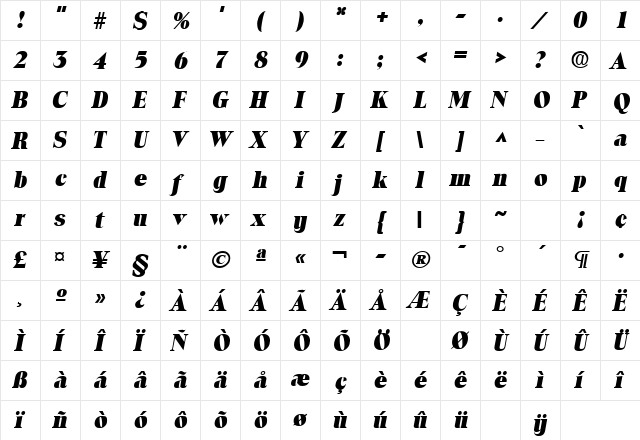
ToledoLH Bold Italic
Design Context for ToledoLH Typeface
ToledoLH takes a measured approach to typography — its balanced proportions and neutral character make it a reliable workhorse for both digital and print work. The dynamic lean of this cut emphasises speed and emphasis in any layout. The heavy weight commands attention and anchors typographic hierarchies.